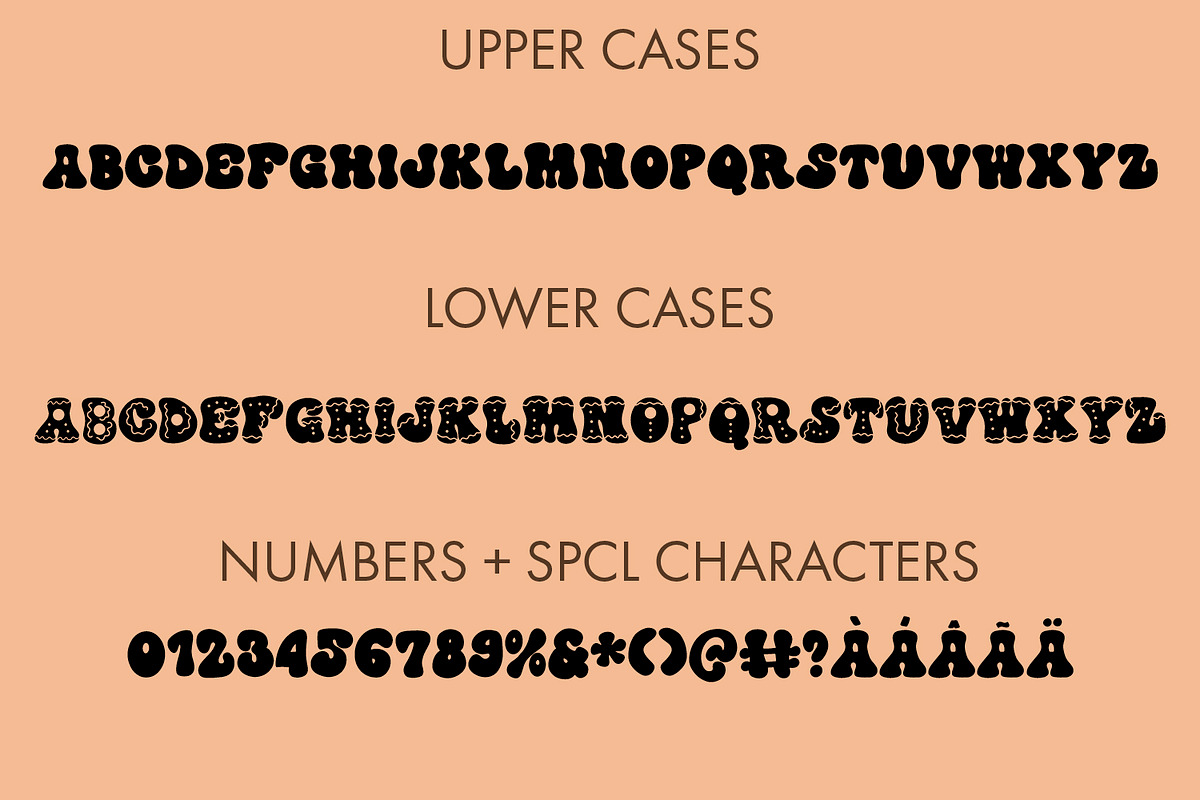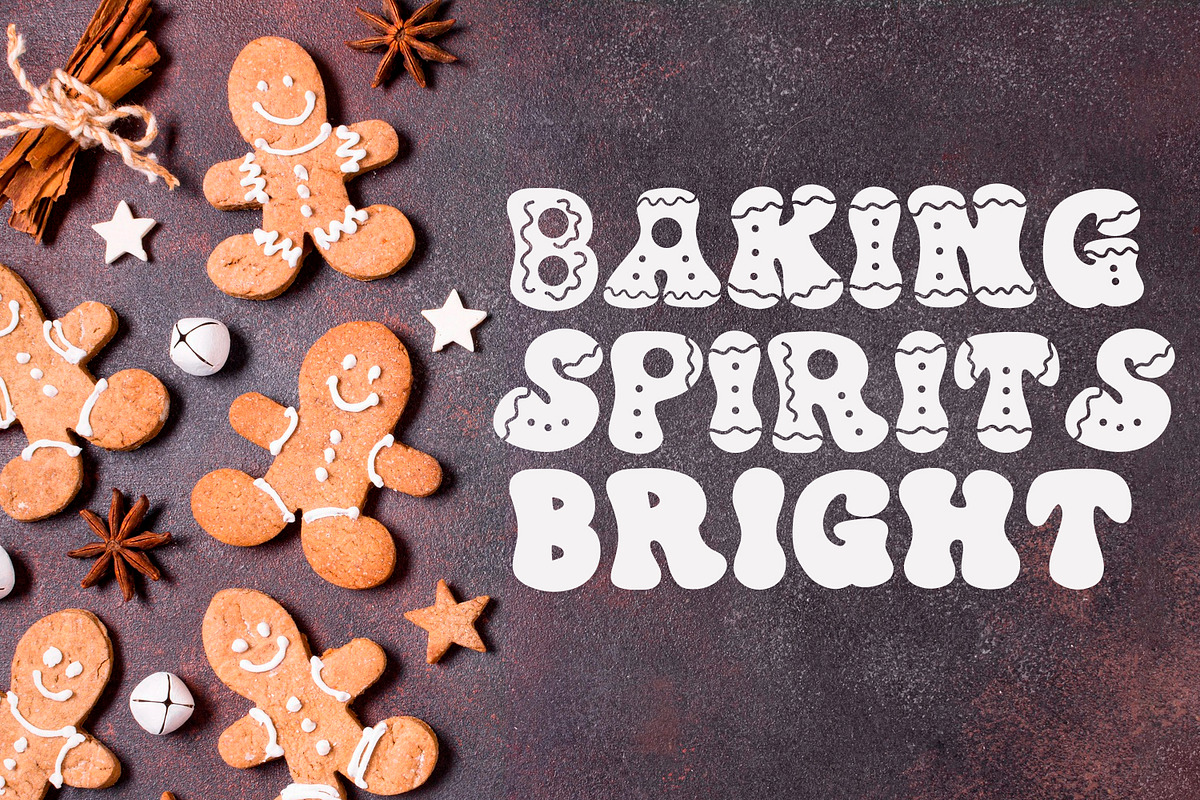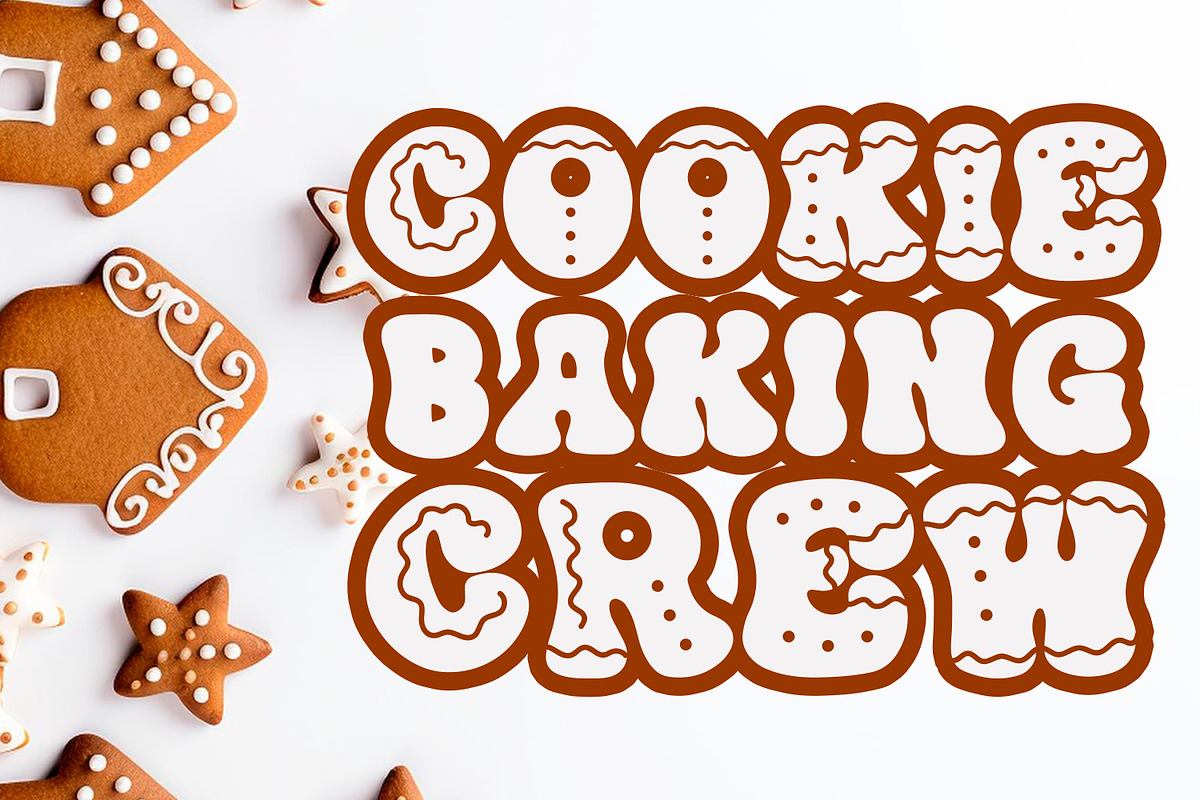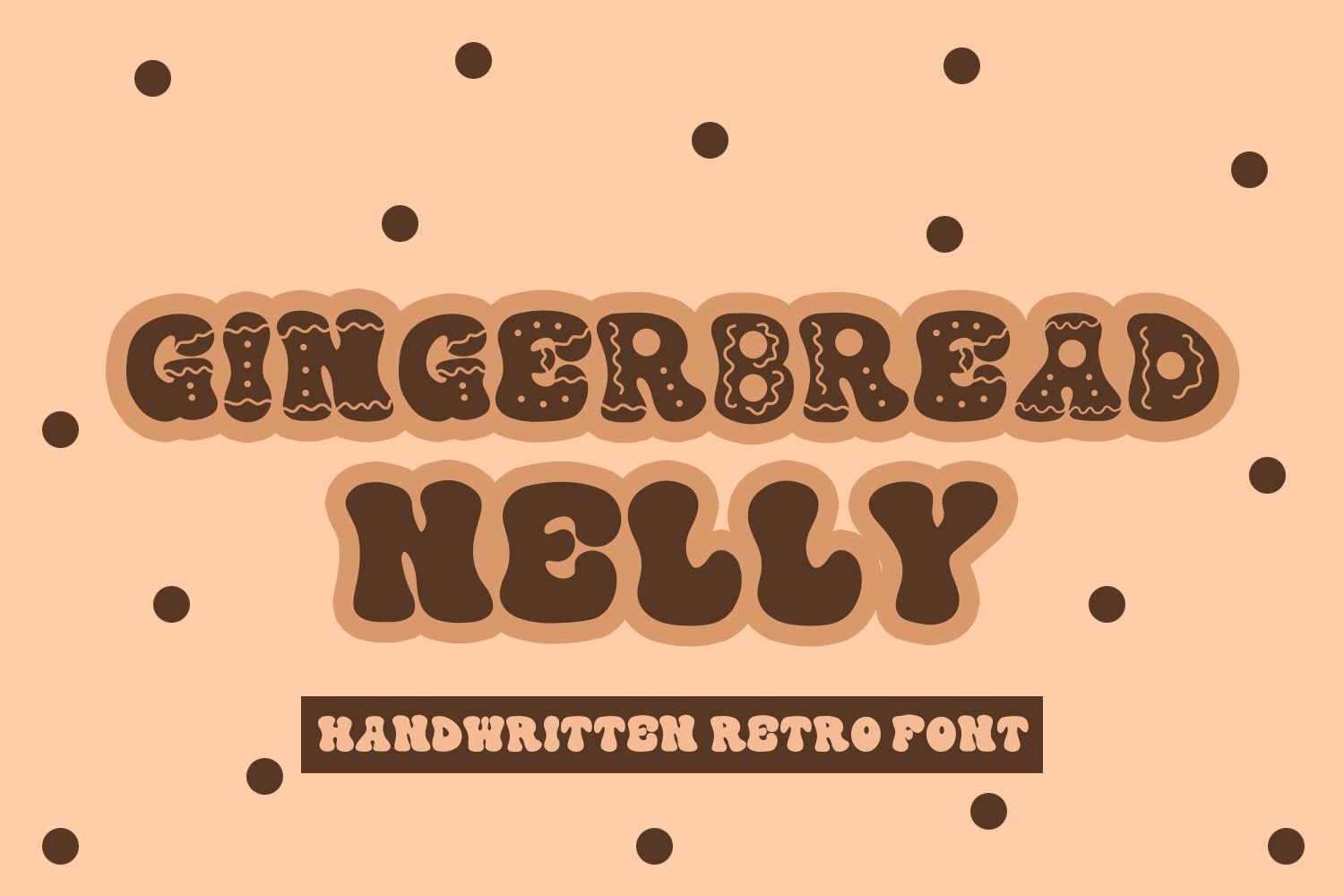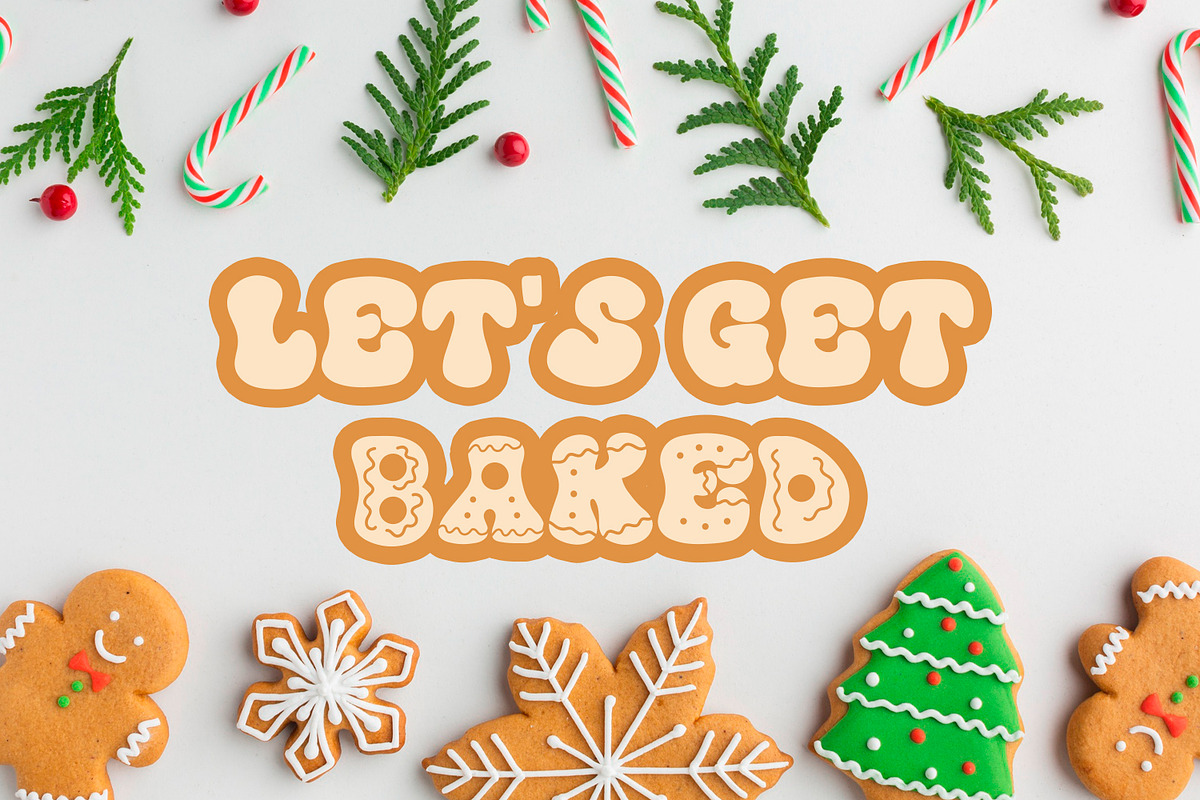
Gingerbread Nelly - A Christmas Font
Gingerbread Nelly - A Christmas Retro Font
Get ready to add a dash of retro holiday charm to your creations with 'Gingerbread Nelly' Christmas font! This upper-case font boasts whimsical gingerbread designs atop each letter, bringing a festive and nostalgic feel to your holiday projects. Elevate your Christmas designs with a touch of sweet and timeless style.
This font can be used for anything such as T-Shirt designs, phone cases, greeting cards, invitations, mugs and so much more! Be creative but most importantly have fun!
- Gingerbread Nelly - Comes with Uppercase A-Z and lowercase a-z letters, 0-9 numbers, stylistic alternates, limited punctuation and supports Western European Languages